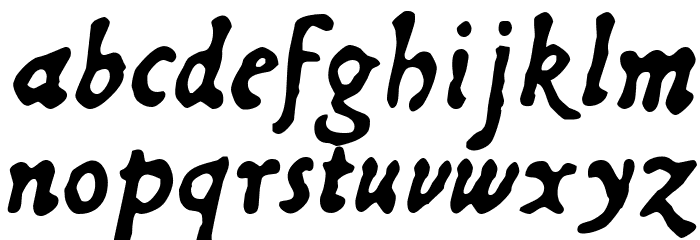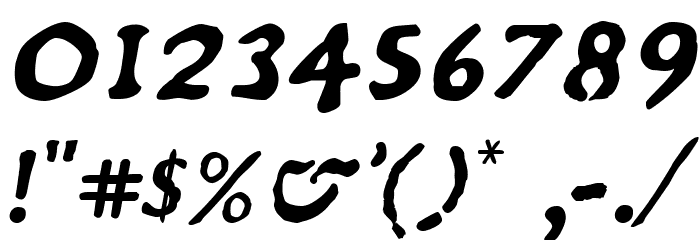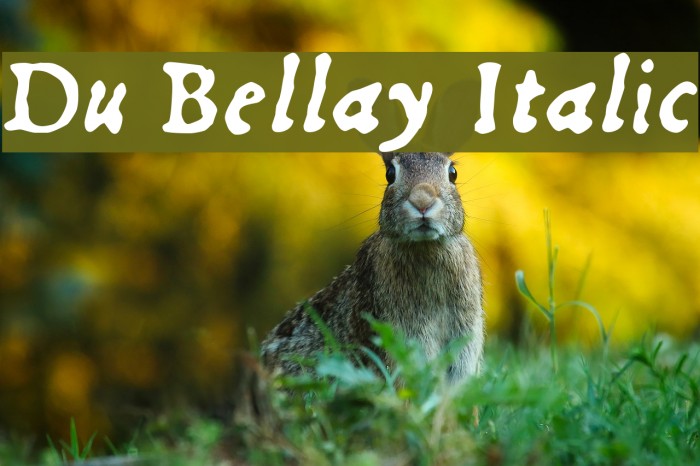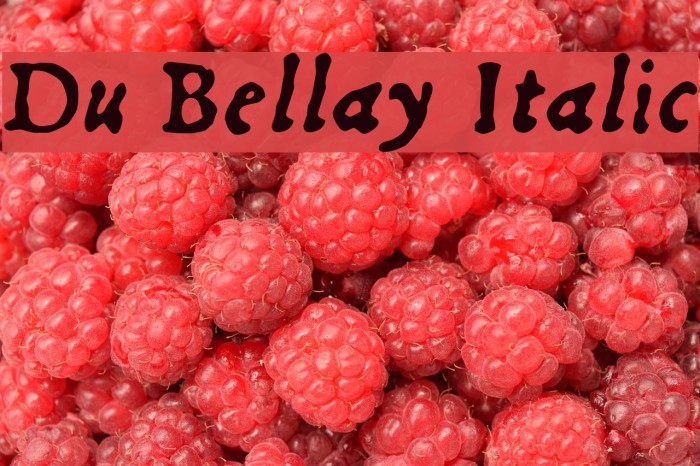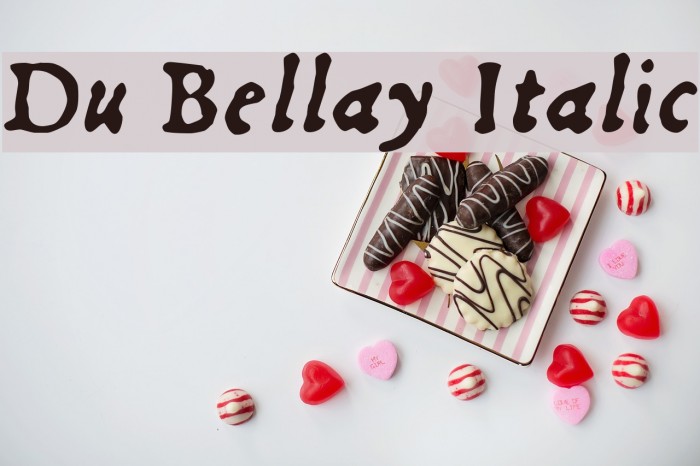
Du Bellay Italic Font
This font exudes a classic and artistic flair, characterized by its fluid and slightly irregular strokes that mimic the style of traditional calligraphy. The uppercase letters are bold and prominent, while the lowercase letters maintain a consistent flow with a touch of elegance. The numerals are distinct and maintain the same artistic style, making them easily recognizable. Special characters are crafted with the same attention to detail, adding to the font's overall cohesive appearance. The font's unique style makes it suitable for projects that require a touch of sophistication and historical charm.
A classic, calligraphic font with fluid, artistic strokes.
- Proposed Projects: Ideal for wedding invitations, historical documents, artistic posters, and branding materials that require a classic touch.
- Overall Style: Classic
- Use Case: Logos, Invitations, Decorative Text